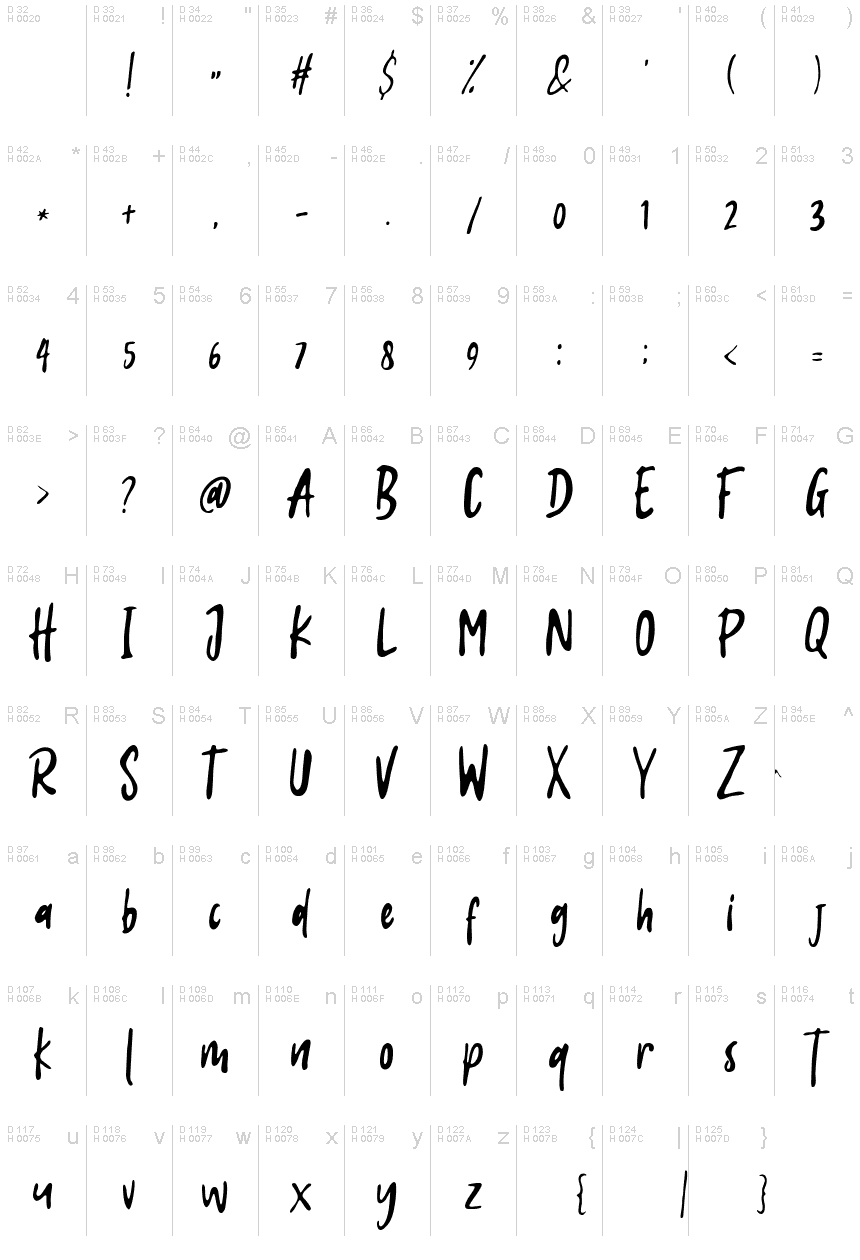
Amook
Introducing Amook, a bold and condensed brush font designed by Cohi. Its smooth strokes make it perfect for projects that require a touch of elegance, such as wedding invitations or high-end branding materials. The boldness of the font also makes it ideal for eye-catching headlines and attention-grabbing posters. Amook's condensed style allows for more text to fit in tight spaces, making it a practical choice for packaging designs or social media graphics. With Amook, you can add sophistication and style to any project with ease.